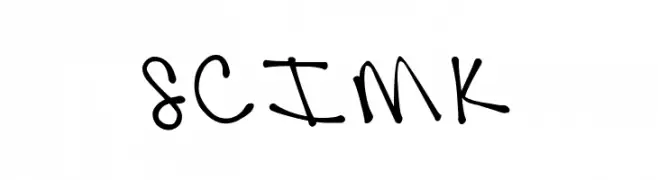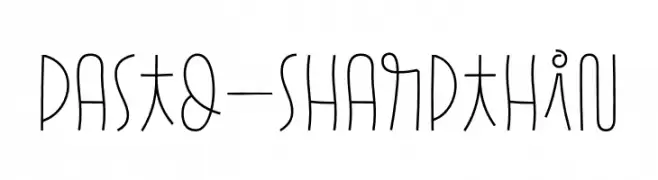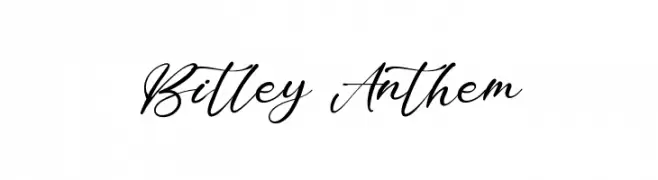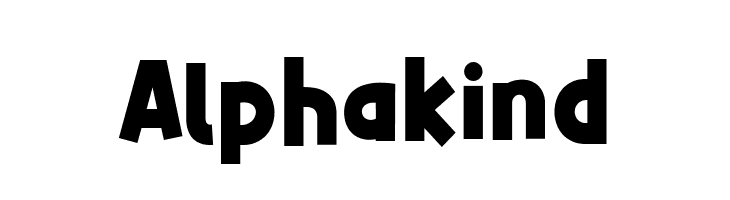
A playful, casual handwritten font with dynamic strokes.
A bold, rounded font with a strong and friendly appearance.
An elegant, flowing script font with a natural handwriting style.
A bold, angular, and slanted font with a modern and dynamic style.
A whimsical, modern font with elongated, thin strokes and playful curves.
A bold, decorative font with intricate flourishes and curls.
A dynamic, twisted font with sharp, angular edges and a modern feel.
A bold, 3D slab serif font with a shadow effect for impactful designs.
A dynamic and energetic script font with fluid, connected letterforms.
A sophisticated script font with elegant, flowing cursive strokes.